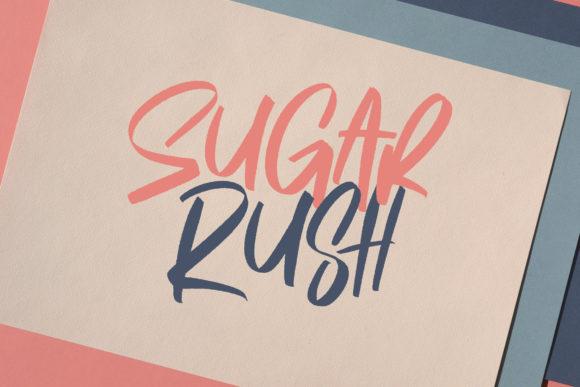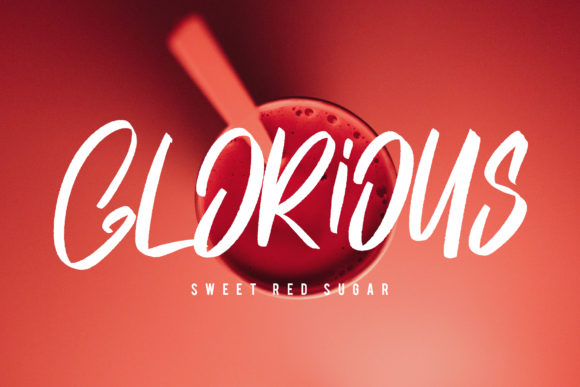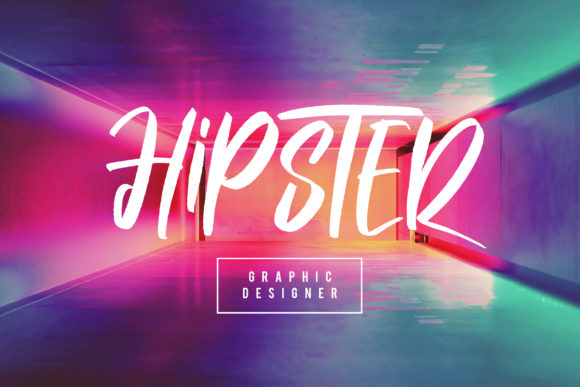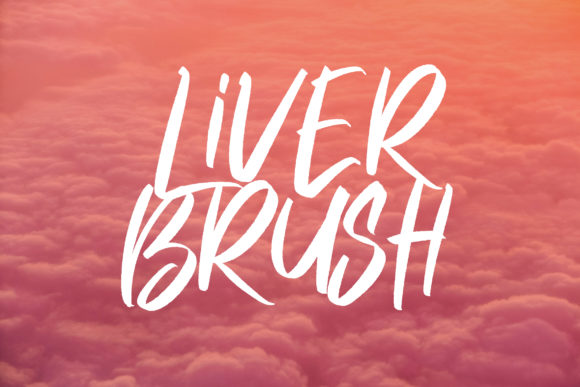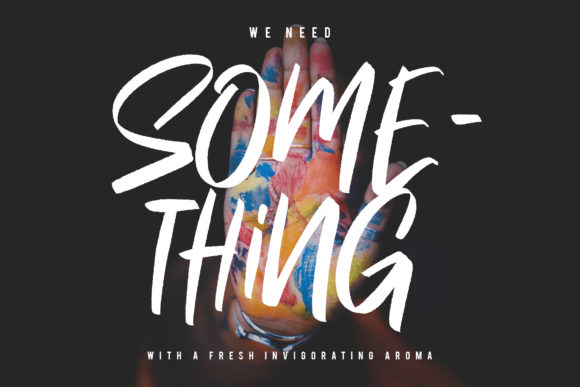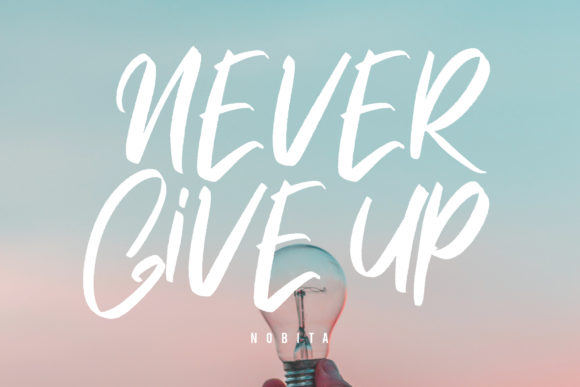
Introduction to Hybrid Font
Hybrid looks spectacular.
This handwritten font has been created with the help of a brush pen It will elevate a wide range of design projects to the highest level, be it branding, headings, wedding designs, invitations, signatures, logos, labels, and much more.
Hybrid Font offers exceptional quality and versatility, making it a valuable addition to your design toolkit. Whether you’re creating for personal projects or commercial use, Hybrid Font delivers professional results.